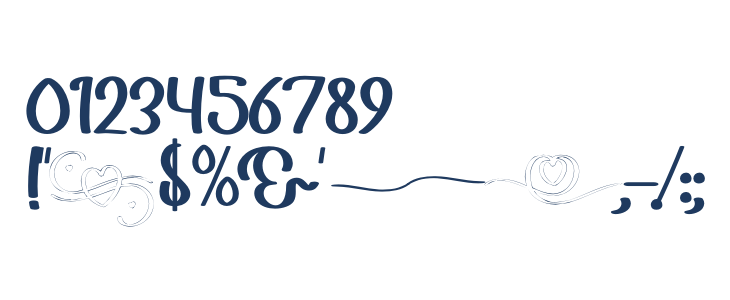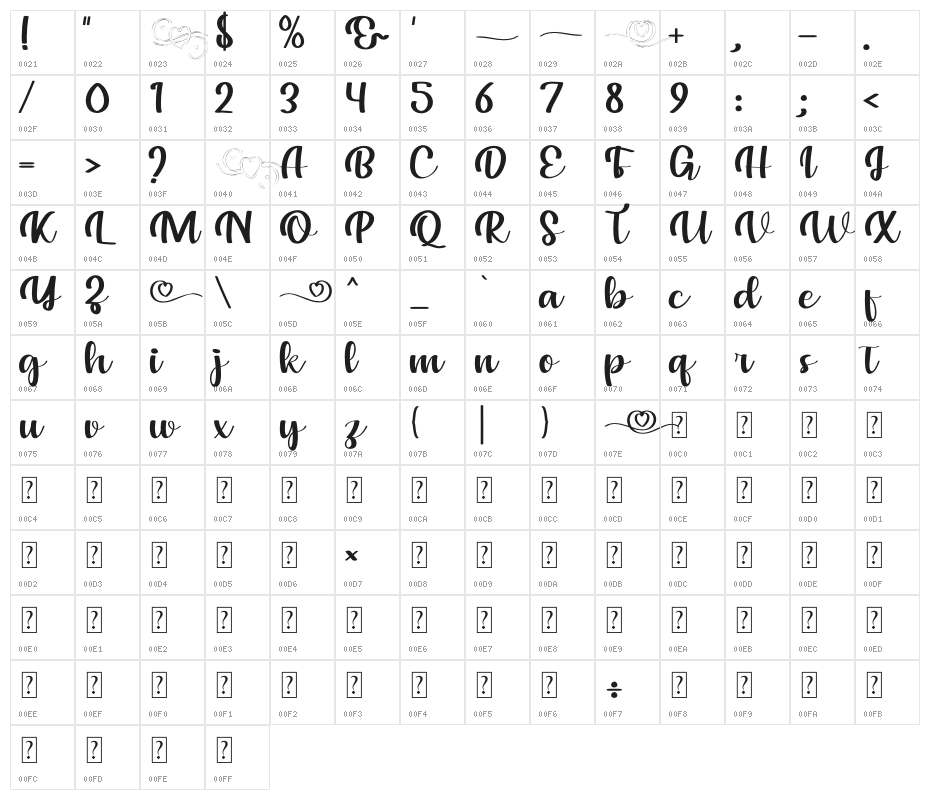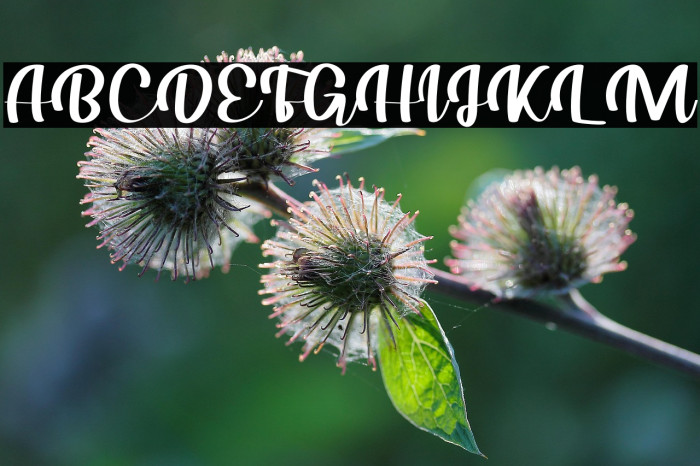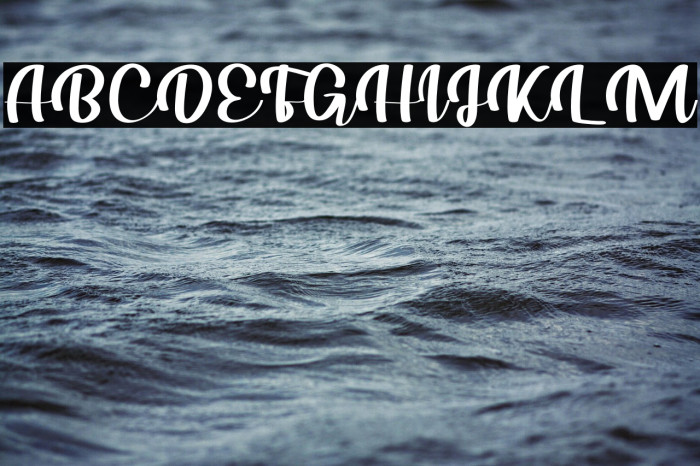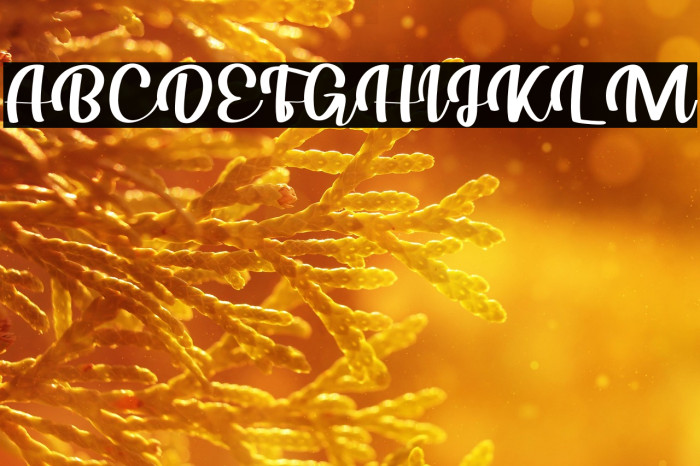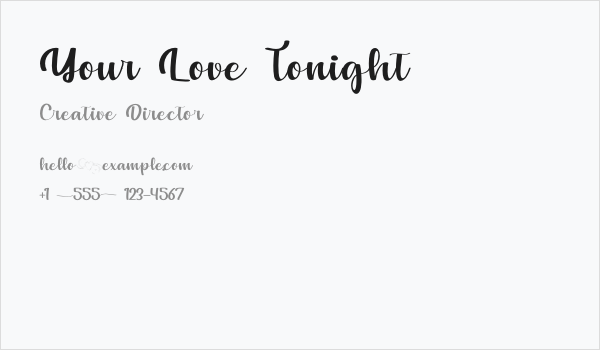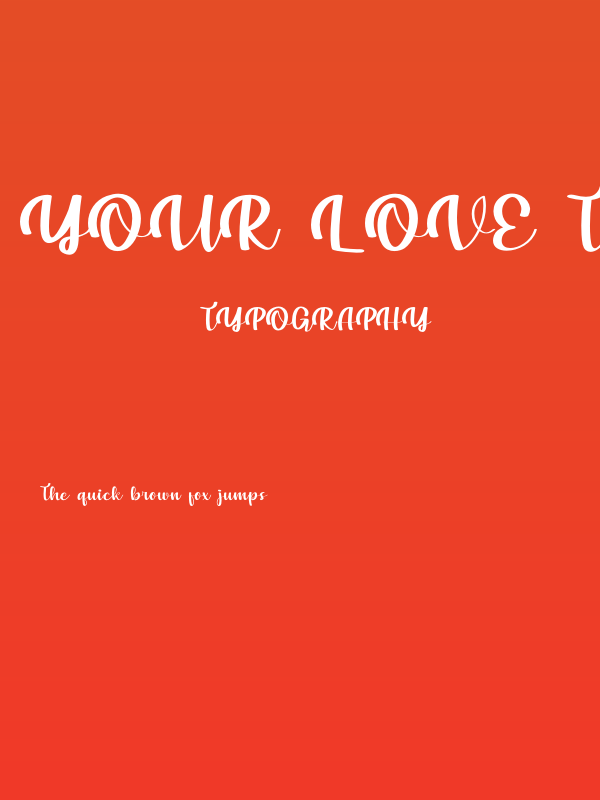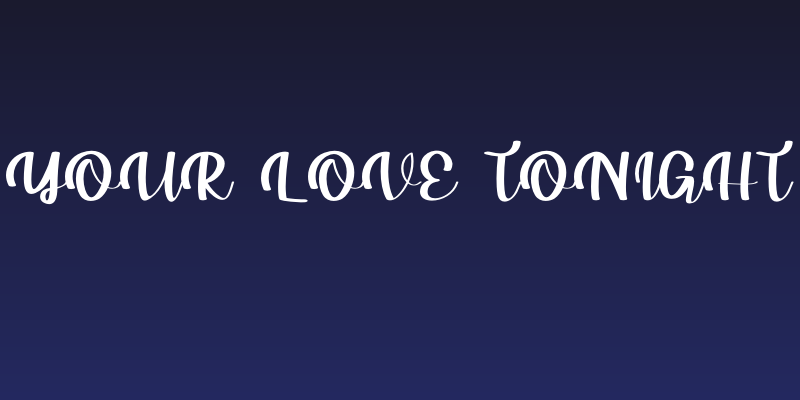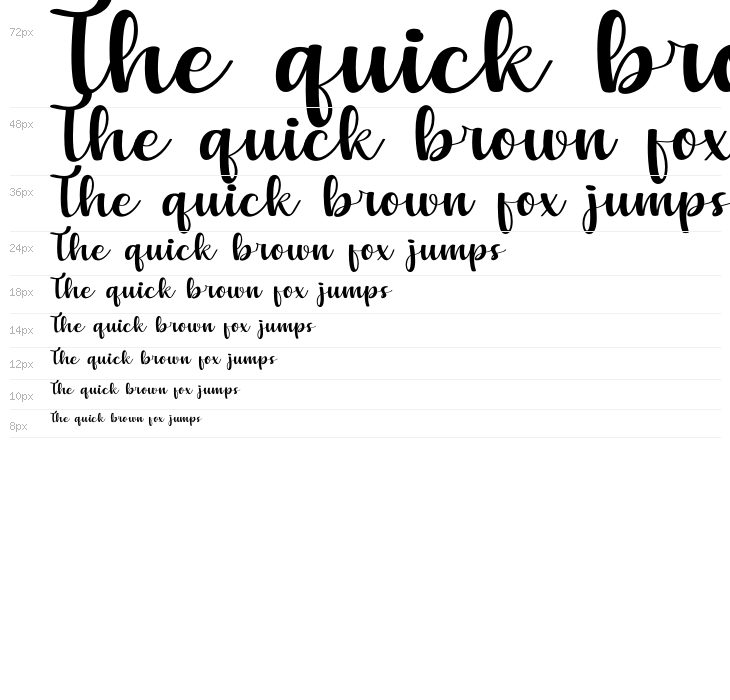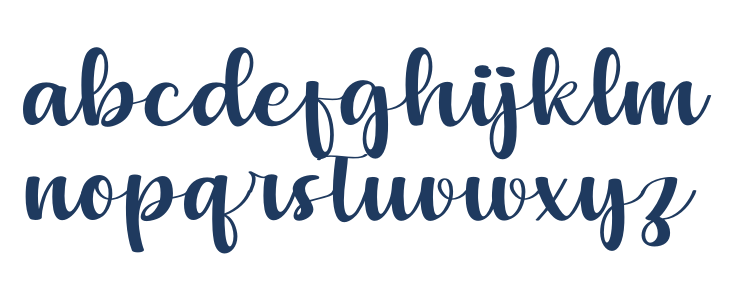
Your Love Tonight Font
Your Love Tonight Description
This font features a playful and elegant script style with a flowing, cursive design. The letters are interconnected with smooth, sweeping curves that give it a romantic and whimsical feel. The uppercase letters are bold and expressive, while the lowercase letters maintain a consistent flow with a slightly more delicate appearance. The numbers are rounded and maintain the same playful style, making them easy to read while still fitting the overall aesthetic. Special characters are creatively integrated, adding to the font's charm and versatility. This font's unique style makes it suitable for a variety of creative projects.
Use CaseLogos, Invitations, Decorative text
Proposed ProjectsIdeal for wedding invitations, greeting cards, branding, and decorative projects.